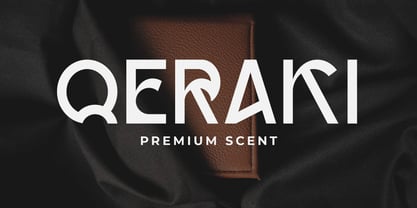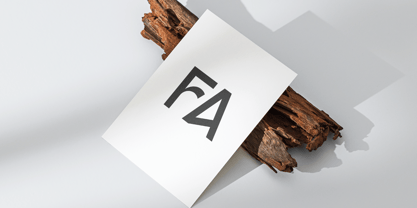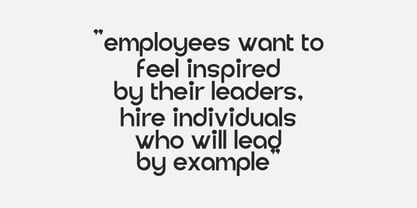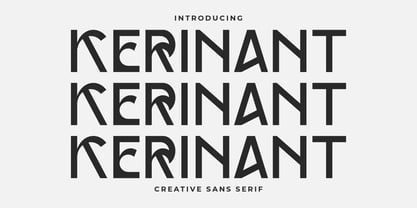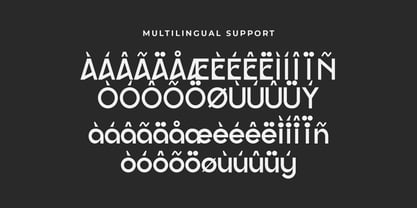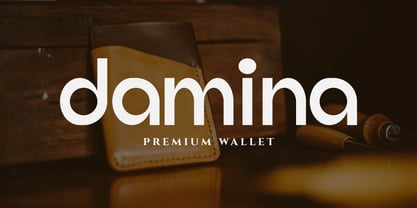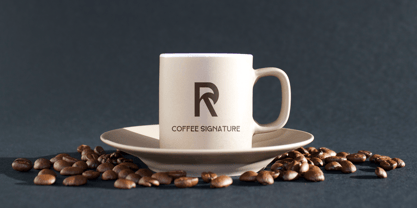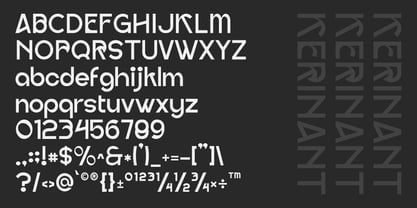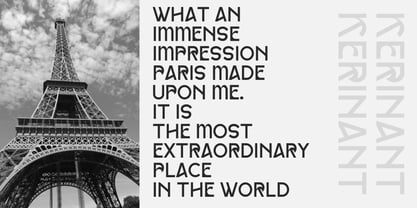
Kerinant
by Artiveko
The Kerinant Font Family was designed by Iwan Alwan and published by Artiveko. Kerinant contains 2 styles and family package options. More about this family
Kerinant is a creative sans serif font by Iwan Alwan, featuring bold and innovative letterforms that blend modern minimalism with unique design elements. Perfect for branding, posters, headlines, and digital design, Kerinant adds a distinctive edge to any project. With multilingual support, ligatures, and alternates, Kerinant combines versatility with a fresh, contemporary style, making it ideal for designs that aim to stand out with creativity and flair.
Designers: Iwan Alwan
Foundry: Artiveko